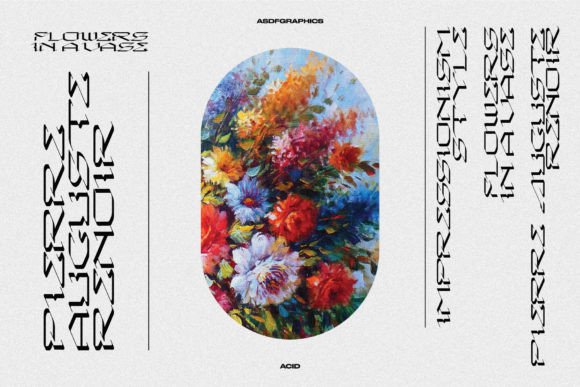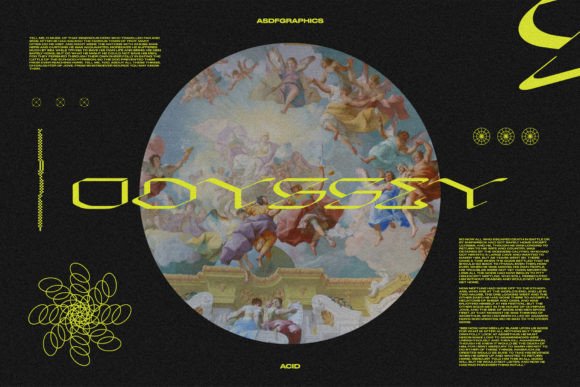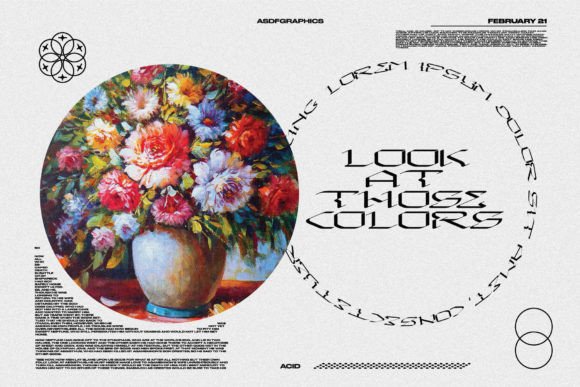
Introducing ACID FONT: The Ultimate Modern Calligraphic and Experimental Typeface
In the world of typography, a new era of creativity and experimentation has dawned. With the emergence of modern calligraphic and experimental typefaces, designers and crafters are spoiled for choice. Among the latest additions to this exciting landscape is the ACID FONT, a revolutionary typeface that embodies the perfect blend of elegance, style, and boldness. In this article, we’ll dive into the world of ACID FONT, exploring its unique features, design inspiration, and the endless possibilities it offers for creative projects.
The Birth of ACID FONT: A Contemporary Hybrid
ACID FONT is the brainchild of Acid Graphics, a team of innovative designers who sought to push the boundaries of traditional typography. By fusing blackletter and serif elements, they created a metamodern grotesque that retains the sophistication and poise of classic typography while injecting a bold, modern twist. The result is a typeface that exudes confidence, energy, and creativity.
Design Characteristics: A Modern, Gothic, Sharp, and Strong Impression
ACID FONT boasts a distinctive design that sets it apart from other typefaces. Its bold acid style makes it perfect for text display purposes, lending a modern, gothic, sharp, and strong impression to any design. The typeface features:
• Sharp Lines and Edges: ACID FONT’s sleek lines and edges create a striking visual effect, making it ideal for large headlines, logos, and other prominent design elements.
• Bold and Elegant: The typeface’s bold style ensures that your text stands out, while its elegant lines and curves add a touch of sophistication.
• Versatility: ACID FONT is designed to be versatile, making it suitable for a wide range of applications, from posters and music artwork to website design, t-shirt prints, and book covers.
Perfect for Creative Projects: Endless Possibilities
ACID FONT’s flexibility and style make it an excellent choice for various creative projects. Some of the many applications where ACID FONT shines include:
• Poster Design: Make a bold statement with ACID FONT as the main text or header text on your poster.
• Music Artwork: Add a touch of modernity and edge to your music artwork with ACID FONT.
• Website Design: Use ACID FONT to create striking headlines and titles that capture visitors’ attention.
• T-Shirt Prints: Create eye-catching designs with ACID FONT, perfect for fashion enthusiasts and designers alike.
• Book Covers: Add a bold, modern twist to your book cover design with ACID FONT.
Why Choose ACID FONT?
With so many typefaces available, why choose ACID FONT? Here are a few compelling reasons:
• Unique Style: ACID FONT’s bold acid style sets it apart from other typefaces, ensuring your design stands out.
• High Versatility: The typeface’s flexibility makes it suitable for a wide range of applications and creative projects.
• Ease of Use: ACID FONT is designed to be easy to use, allowing you to focus on your creative vision rather than struggling with complicated typography.
ACID FONT is a game-changing typeface that embodies the perfect blend of modernity, elegance, and boldness. With its unique design characteristics, versatility, and ease of use, it’s an excellent choice for designers and crafters seeking to elevate their creative projects. Whether you’re working on a poster, music artwork, website design, or any other project, ACID FONT is sure to make a lasting impression.